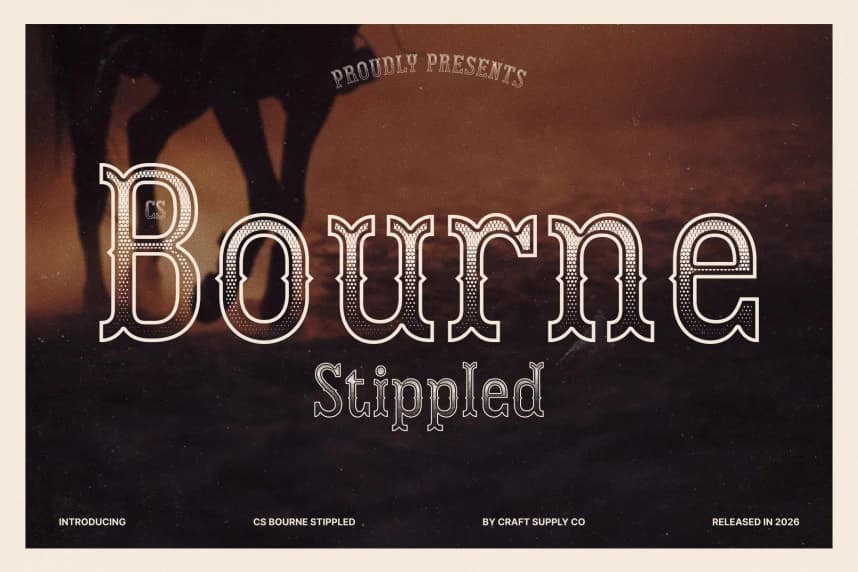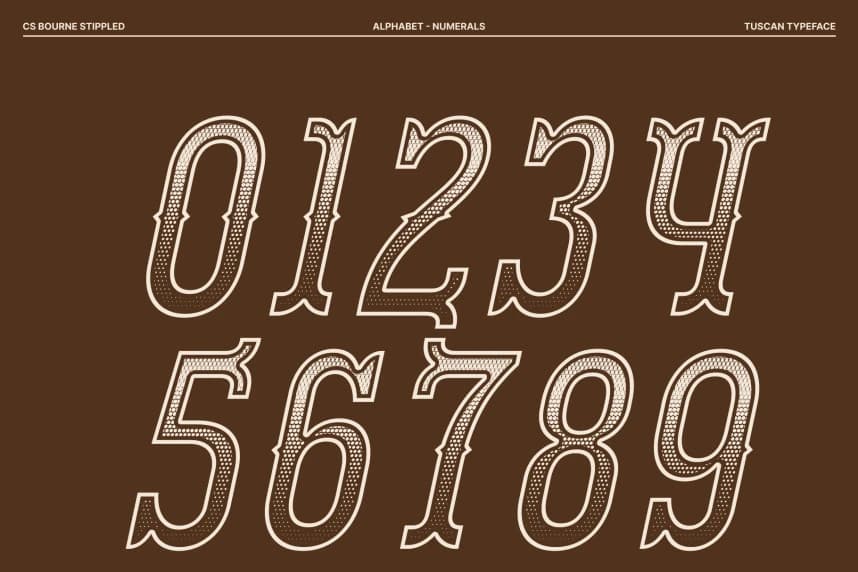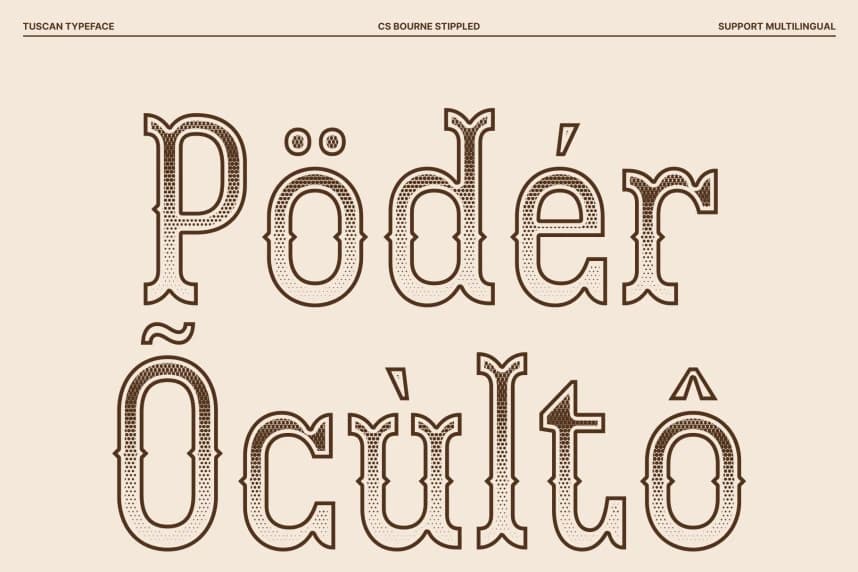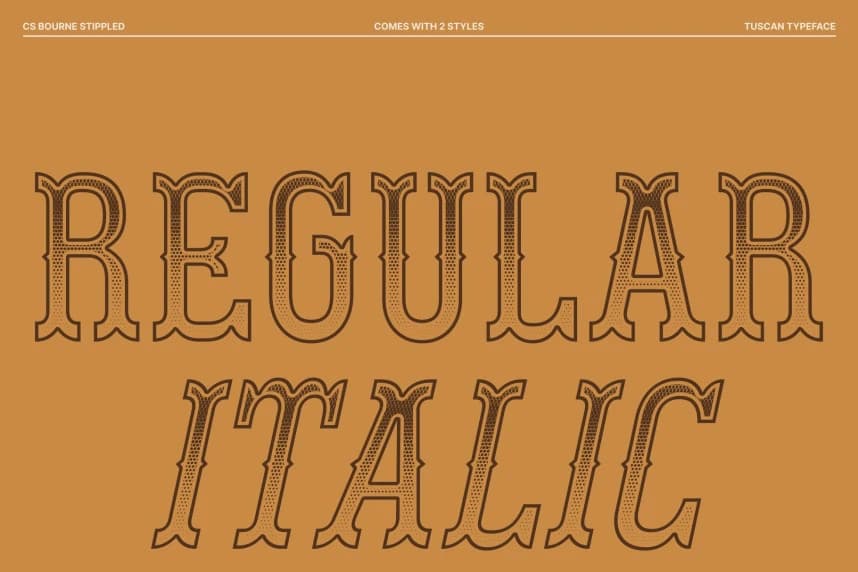
CS Bourne Stippled Font
CS Bourne Stippled Font – Tuscan Font: A Journey into Vintage Elegance Distinctive Display Font with Tuscan Flair and Stippled Texture. This is a captivating display typeface that masterfully blends decorative Tuscan elements with a rich stippled texture.